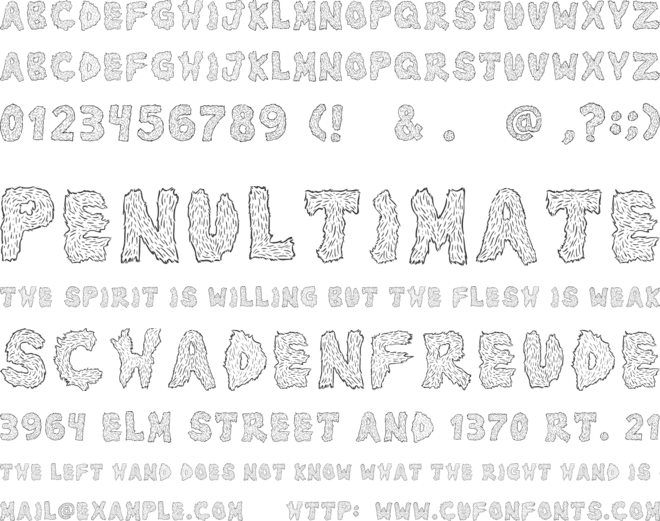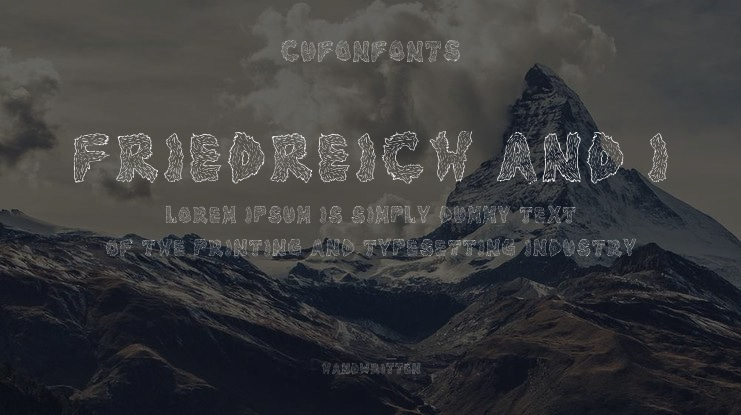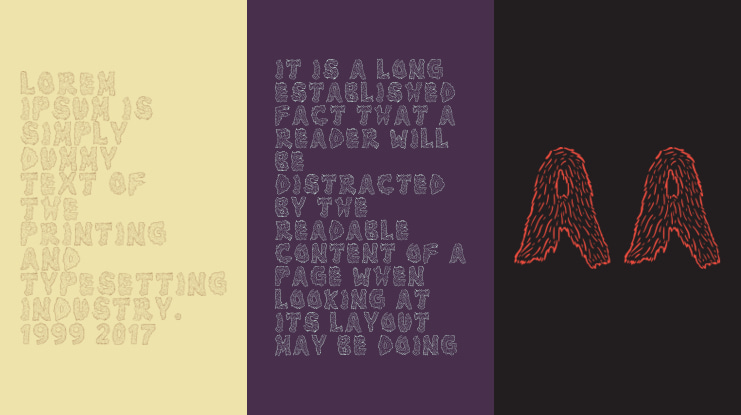
FRIEDREICH&i-Regular is an experimental typeface inspired by Friedreich’s ataxia, a neurodegenerative disease that affects movement and coordination.
The letterforms reflect this concept through irregular, shaky, hairy strokes, evoking tension, fragility, and the involuntary nature of disrupted motor control.
Each glyph was crafted by hand, drawing from the body, tremor, and the struggle to hold a line under neurological stress.
This typeface is ideal for editorial projects, posters, and emotionally charged or socially critical design.
Includes uppercase A–Z, numbers, basic punctuation, and selected extended characters.